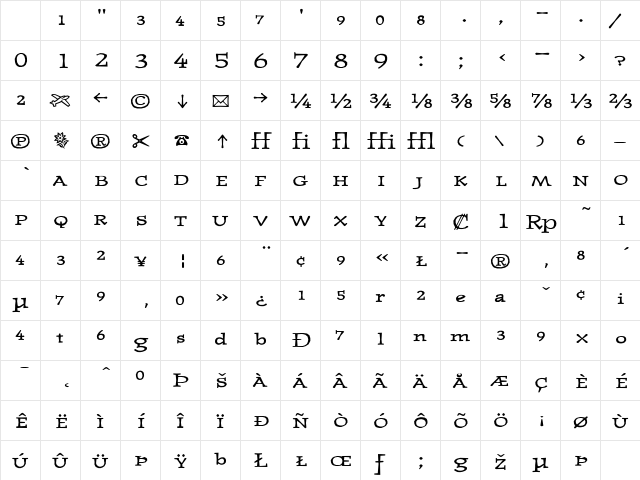
JournalUltraFractions Medium
Foundry: Copr. Emigre Graphics
Design Context for JournalUltraFractions
JournalUltraFractions is a composed and adaptable typeface that performs quietly and consistently across a wide range of design contexts.
Pro Tip: Use JournalUltraFractions in both headline and body roles to test its range before committing to a single application.